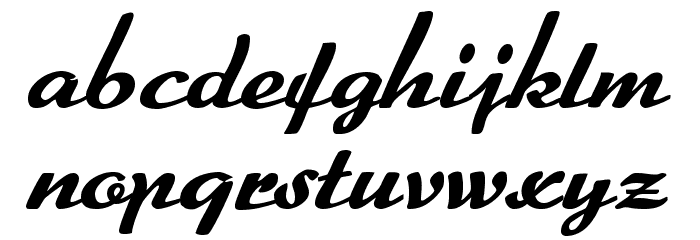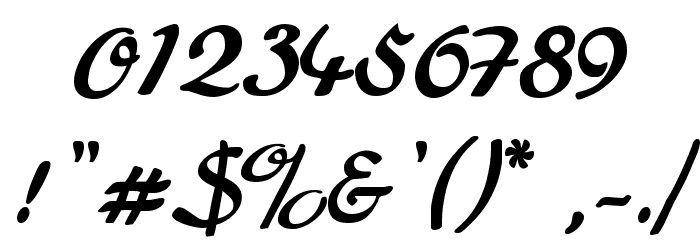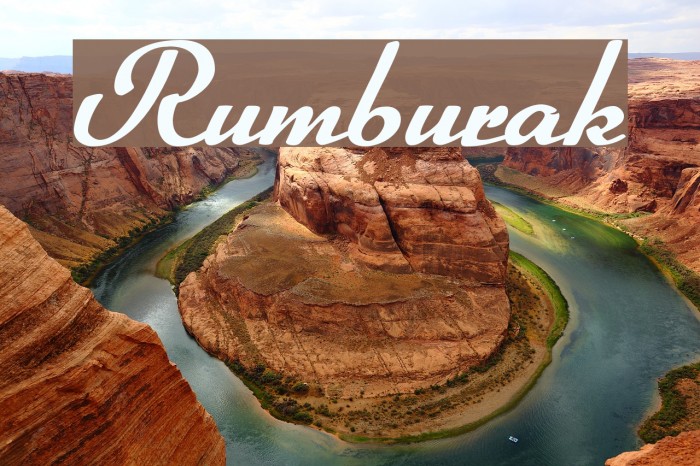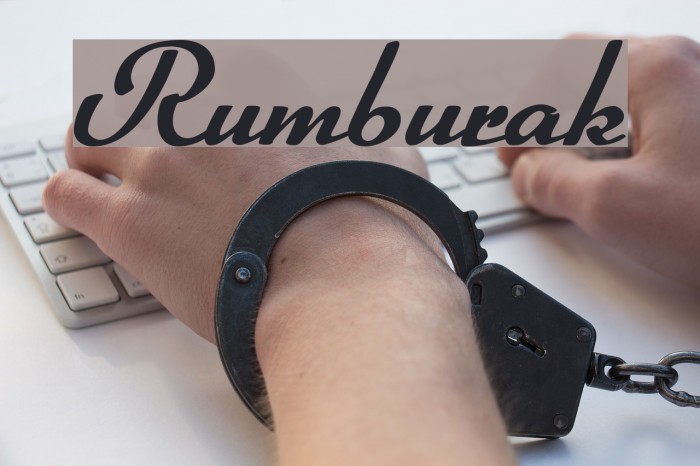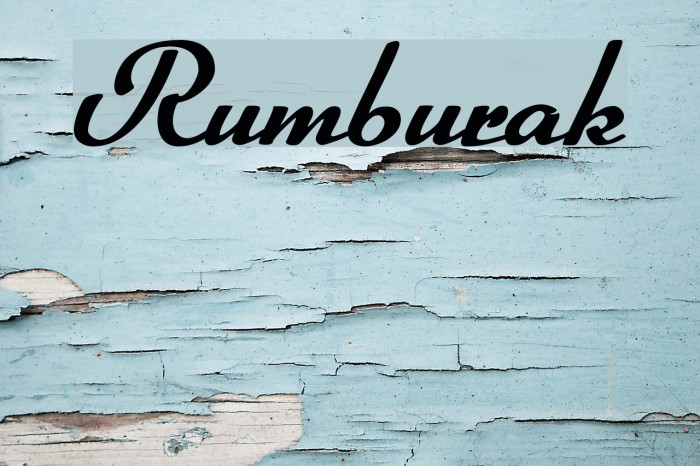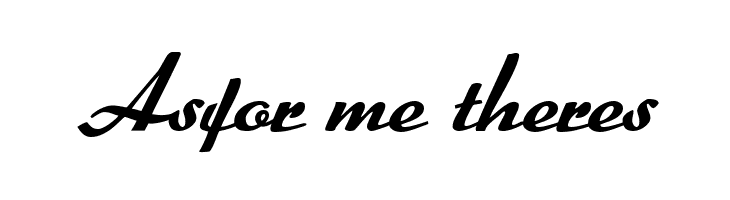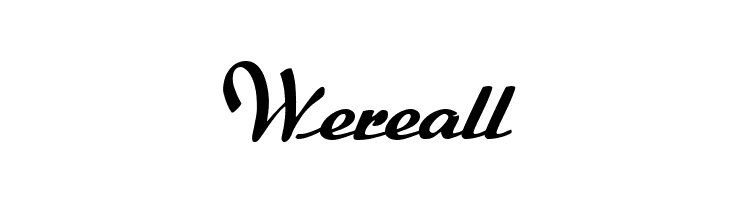
Rumburak Font
This elegant script font features a flowing, cursive style with smooth, connected strokes. The uppercase letters are ornate and slightly slanted, giving a sense of movement and sophistication. The lowercase letters maintain a consistent flow, enhancing readability while preserving the decorative nature. Numbers and special characters are crafted with the same attention to detail, ensuring a cohesive look across all elements. The font's overall appearance is both classic and stylish, making it suitable for a variety of design applications.
An elegant, flowing script font with connected strokes and a classic style.
- Proposed Projects: Ideal for wedding invitations, elegant branding, greeting cards, and decorative headlines.
- Category: Script
- Overall Style: Classic
- Use Case: Headlines, Logos, Invitations